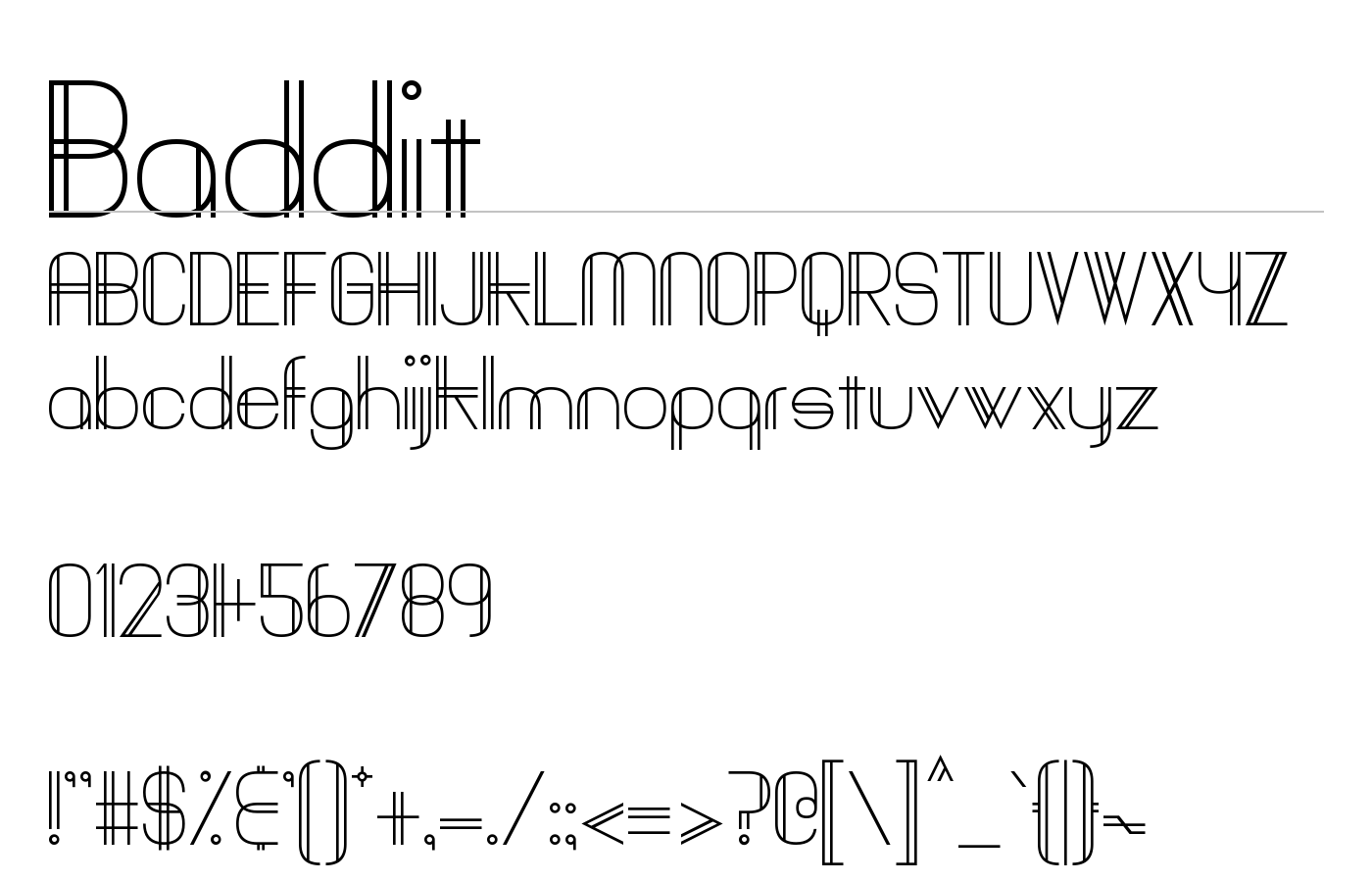
Baddit is a modern, ultra-thin sans serif font with a distinctive geometric and linear structure. Its tall, condensed letterforms and fine stroke weight give it a sleek, minimalist feel, making it ideal for contemporary design projects such as fashion branding, headlines, and editorial layouts where a sophisticated yet edgy look is desired. This font’s unique detailing and clean lines lend a futuristic and stylish personality suited for eye-catching headlines and logos.
Baddit Font
About Baddit Font